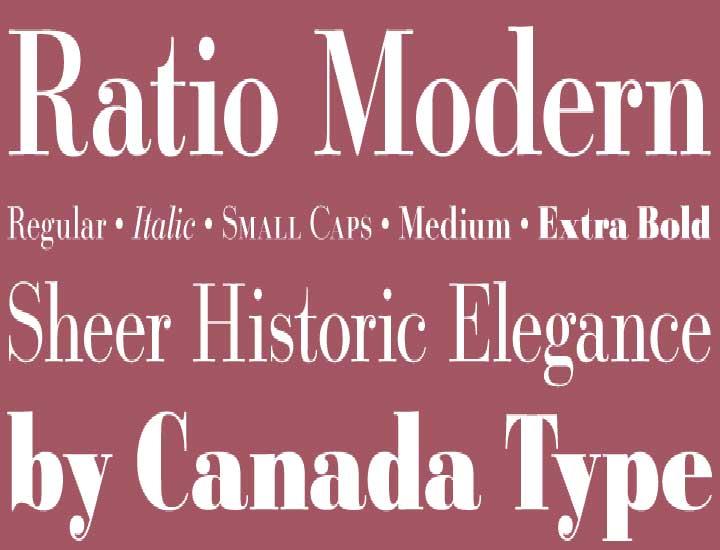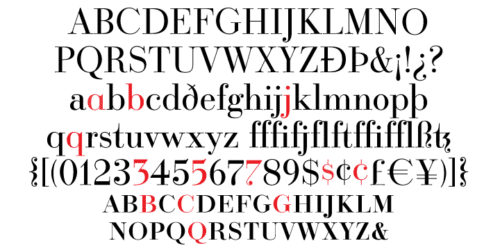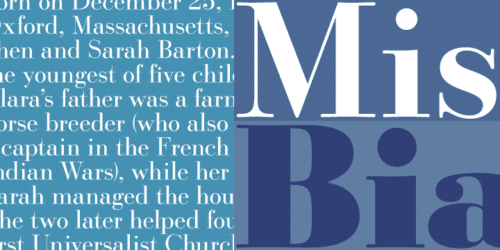
Designed in 1923 by Friedrich Kleukens for the Stempel foundry, Ratio was one of the first metal faces to bring the Didone genre to the forefront of industrial mass publishing as a headline and magazine face. Though essentially modern in construct, Ratio incorporates some oldstyle and transitional traits, managing to summarize the European evolution of this particular aesthetic. This is evident in its shaped serifs (still unique after all these decades), soft roundings, an elegantly subdued italic, the variation of its shapes between weights, and the obvious fat face influence in the ExtraBold. Thus Ratio finds the balance between modern elegance and fine typographic tradition.
This exclusive digitization expands on the original metal set by including small capitals and many alternates in all the styles. It also boasts a larger than usual linguistic support.